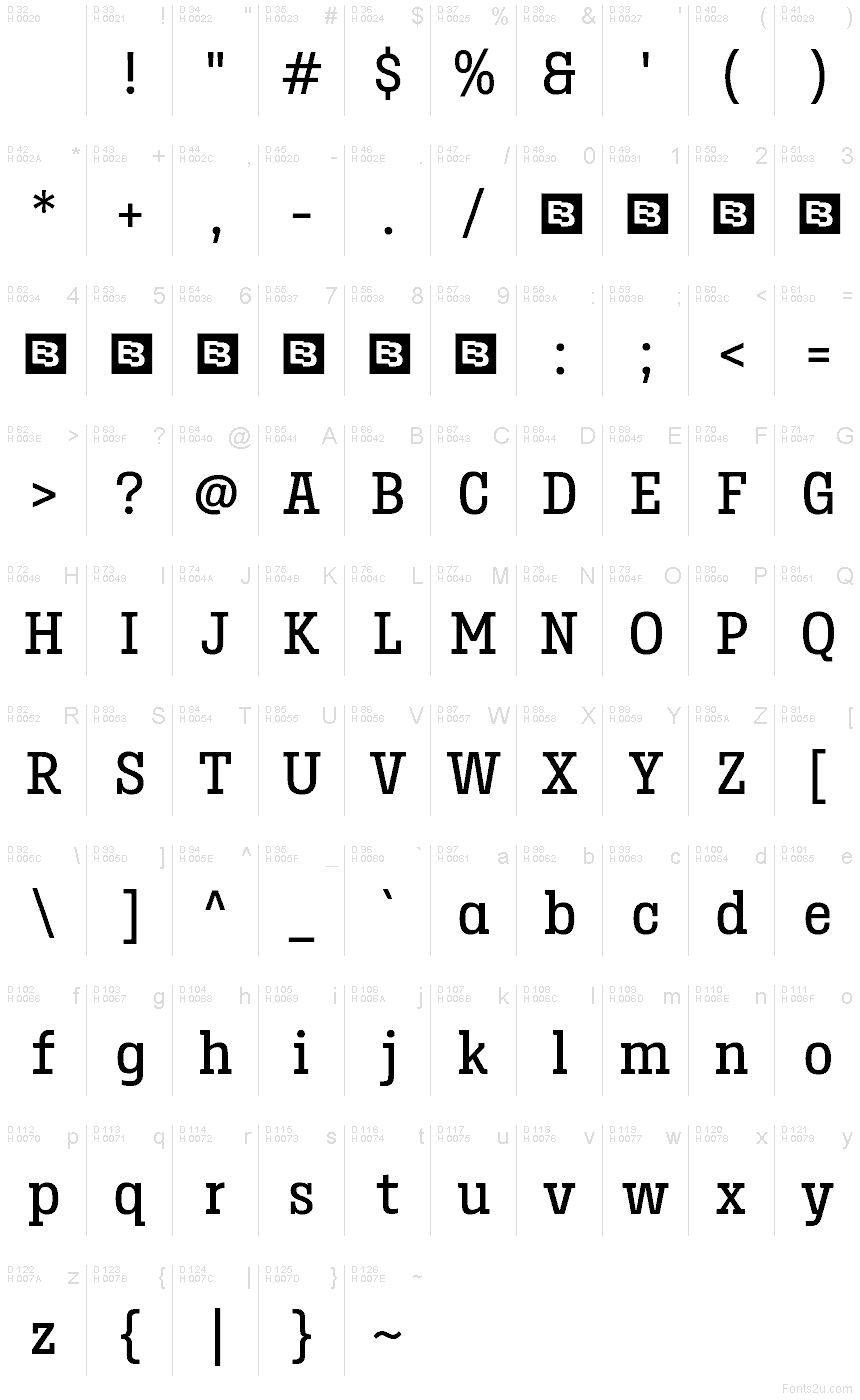
Birdwood Trial Medium
Birdwood font designed by Eko Bimantara is a free serif font that combines modern and traditional styles. Designed for authority and elegance, the characters feature smooth curves and emphatic vertical lines for a look that balances professionalism with sophistication.